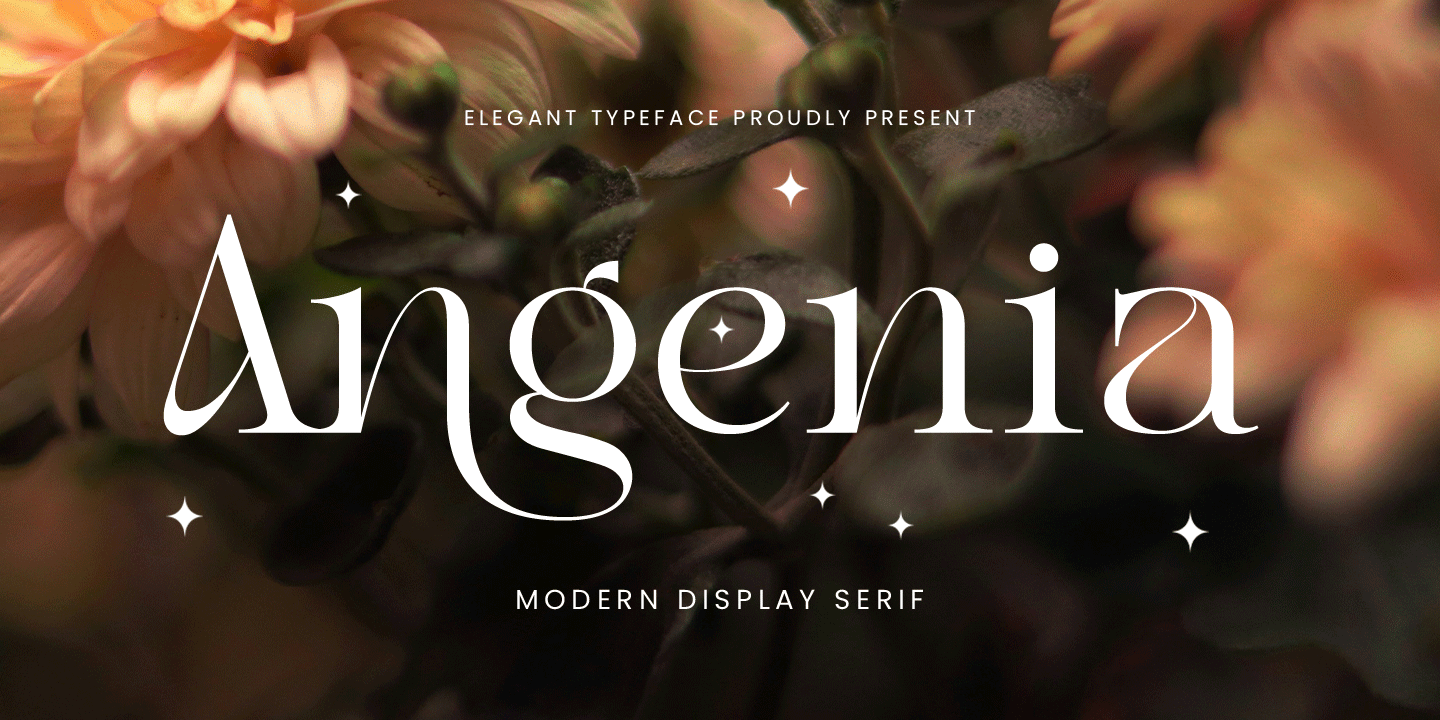
Angenia Font is ideal for elegant wedding invitations, luxury beauty brand packaging, high-end fashion magazines, sophisticated restaurant menus, premium jewelry catalogs, boutique hotel branding, upscale spa marketing, fine art gallery exhibitions, exclusive event stationery, and refined creative projects that demand graceful femininity and timeless elegance.
What makes Angenia Font so exciting is its exquisite balance of delicate curves and sophisticated structure that embodies pure elegance and feminine grace. This typeface captures the essence of refined beauty through flowing letterforms and carefully crafted details that create an immediate sense of luxury and sophistication, making every word appear more precious and thoughtfully considered.
Angenia Font family encompasses multiple elegant variations: Regular, Bold, Light, Thin, Italic, Script, Ornamental, and Decorative versions. Each style maintains the font's inherent grace and sophistication while offering different levels of formality and artistic flourish, enabling designers to create cohesive luxury branding that appeals to discerning audiences seeking refinement.
The timeless elegance of Angenia Font Free Download makes it exceptionally valuable for premium lifestyle and luxury market segments. This font successfully communicates exclusivity and refined taste, making it perfect for brands that want to attract sophisticated clientele who appreciate beauty, craftsmanship, and attention to detail. Its versatile nature performs beautifully across both digital platforms and high-quality print materials, while its distinctive graceful character creates immediate emotional connection with audiences who value elegance and feminine sophistication.